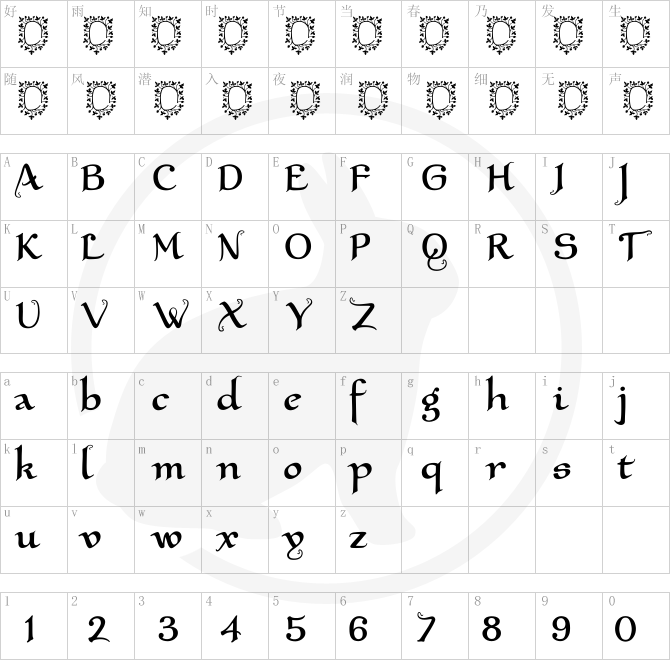
- Font Name:XalTerion
XalTerion.ttf is a very beautiful artistic font, XalTerion.ttf is widely used in the design and printing of various books and pictures,XalTerion.ttf has a strong visual impact,XalTerion.ttf is a commonly used font in newspapers, magazines and books, and is used in posters, e-commerce Poster design, store design, logo design, font design and other fields.XalTerion.